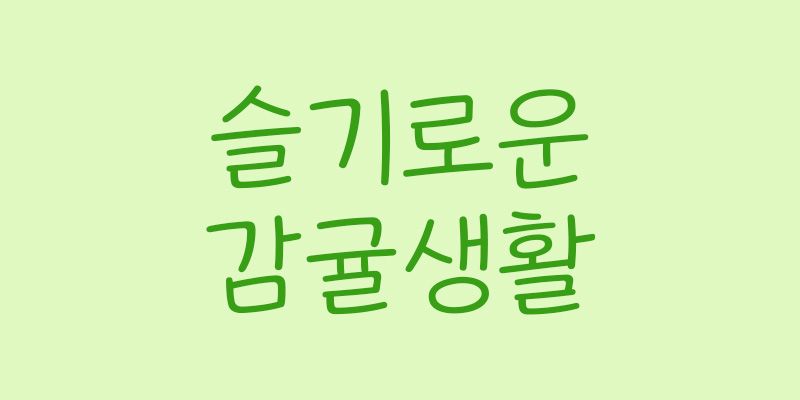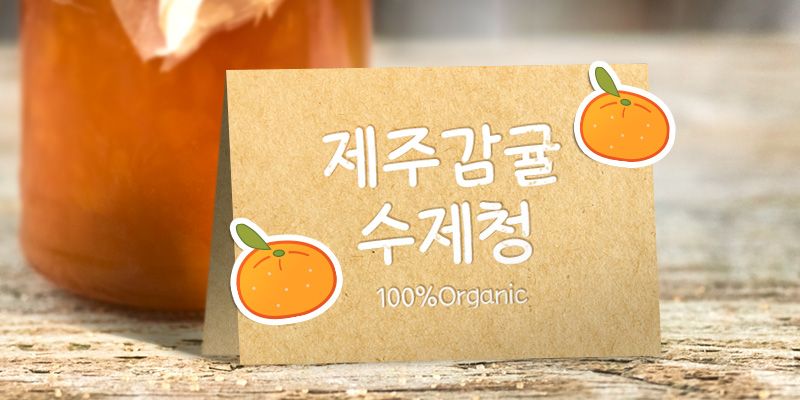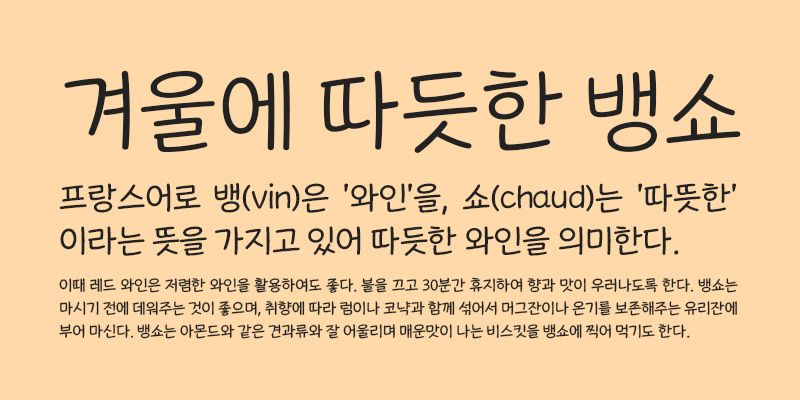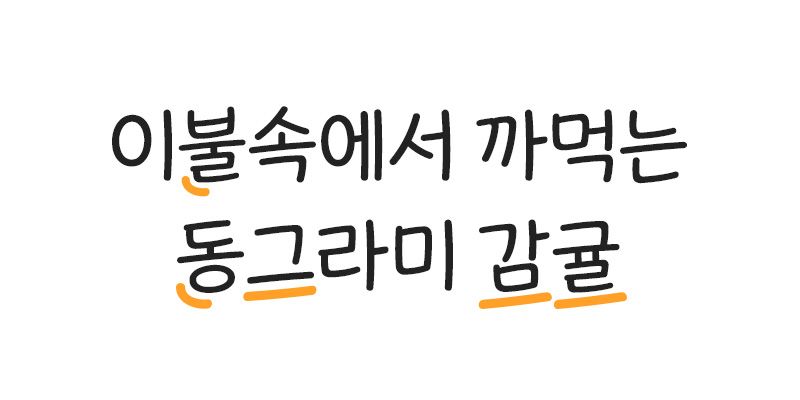
RixCitrusLife was inspired by a full holiday that people can spend in a season when tangerines come out.
The straight strokes and soft roundness of the corners combine with the overall slope of the characters, which gives the font a cute and vibrant handwritten feel.